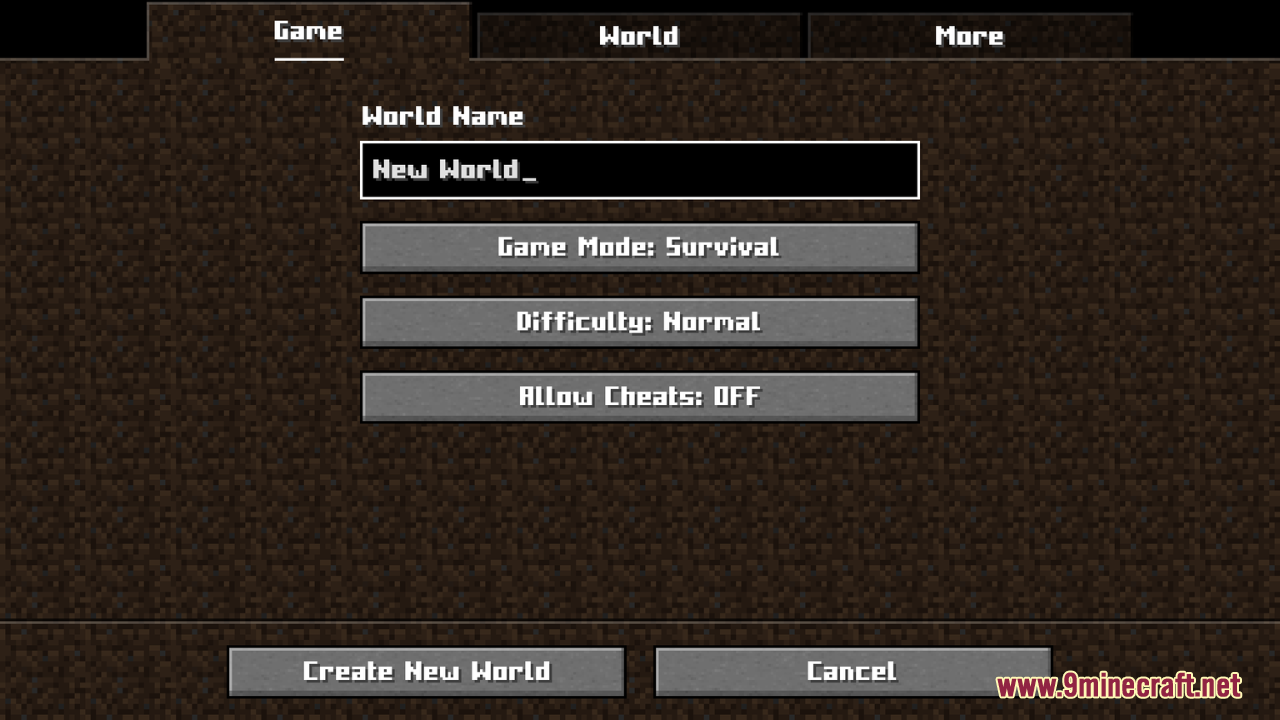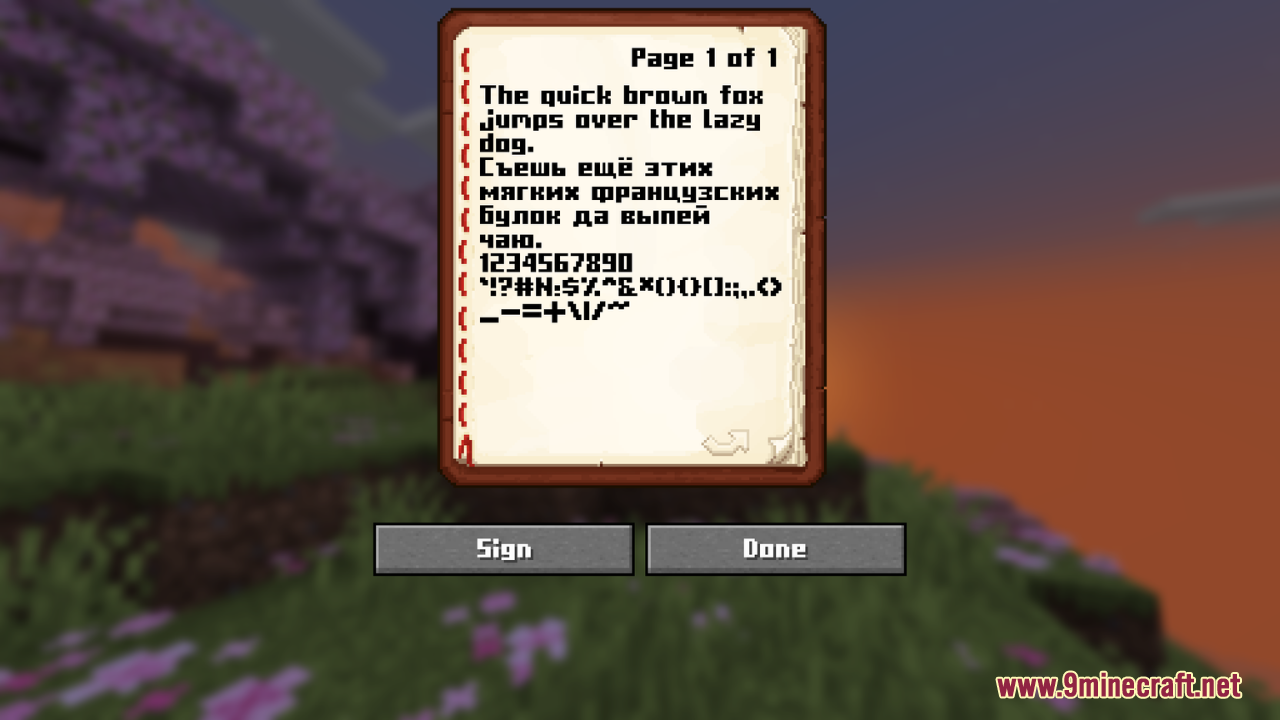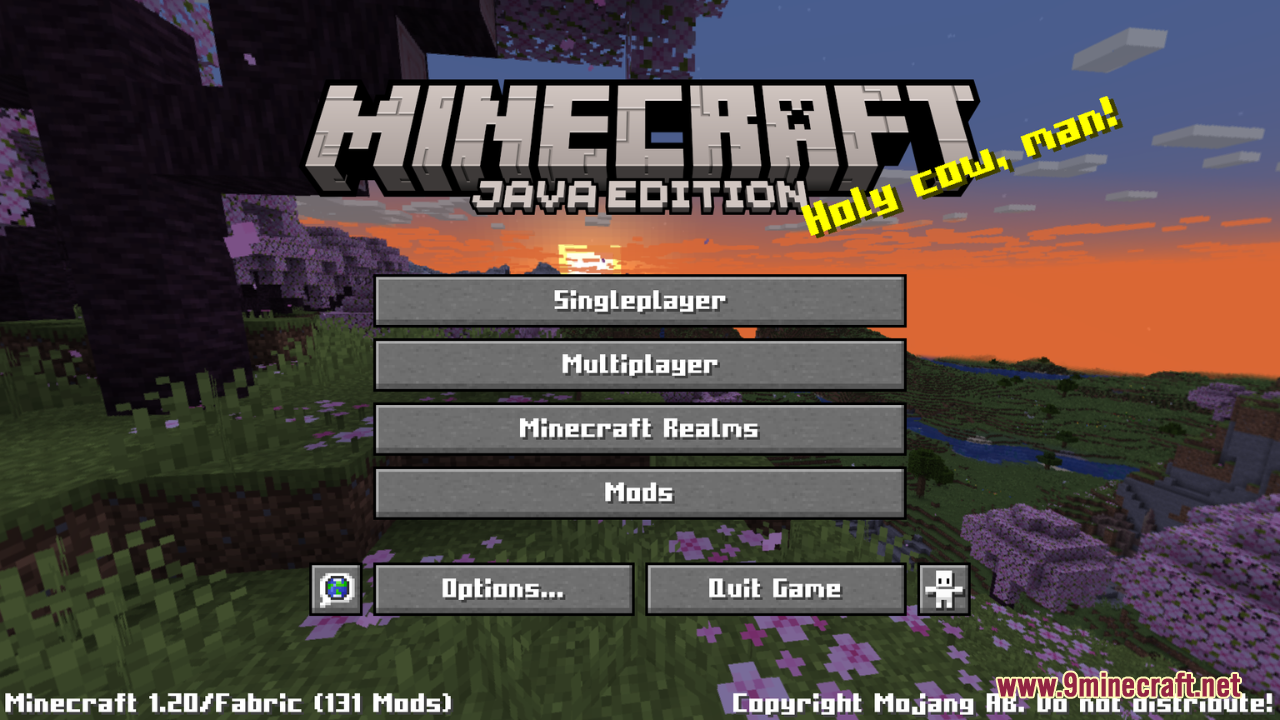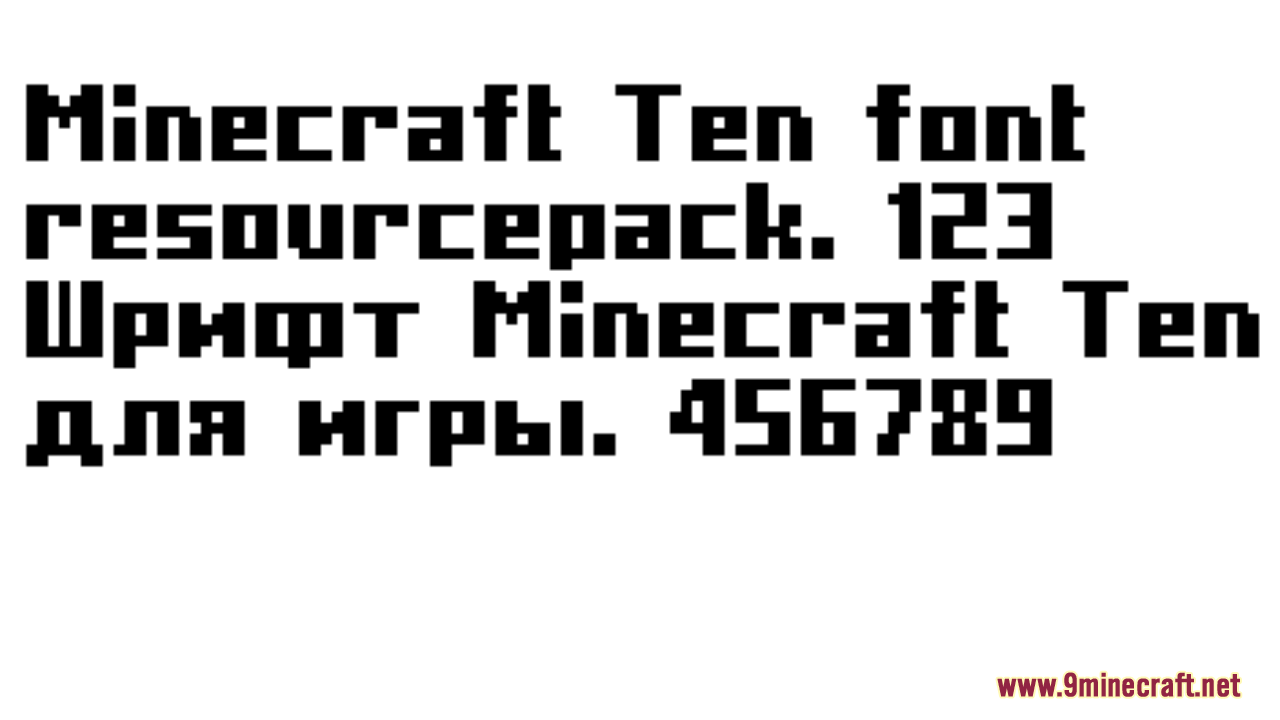
Minecraft Ten Font Resource Pack simply transforms the symbols, Latin, and Cyrillic characters to resemble the Minecraft Ten font style. This slight and clean pack enhances readability while keeping the iconic pixelated charm of Minecraft’s typography. Whether you’re chatting with friends, reading signs, or navigating menus, the new font gives the game a sleek yet familiar aesthetic. In general, it is really perfect for players who appreciate a customized and polished text experience while staying true to the Minecraft look.